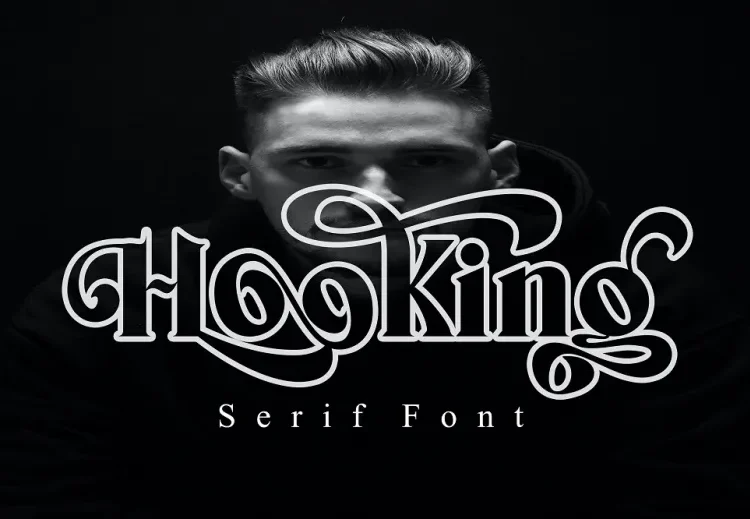
Hooking Font
Hooking is a timeless serif font that exudes elegance and sophistication, featuring beautifully connected letters and numerous variations that enhance its overall aesthetic appeal. This glorious style serif font is designed to bring a touch of luxury and class to your designs, making them stand out with a refined and polished look.
Highly versatile, Hooking can be used across both large and small-scale projects, ensuring adaptability to various design needs. Whether you’re working on branding projects, logos, clothing branding, or packaging, Hooking delivers a luxurious touch. It also excels in magazine headings, advertisements, t-shirts, postcards, editorials, and product packaging. With its balanced design, this font effectively caters to both masculine and feminine aesthetics, offering a perfect solution for gender-neutral projects.